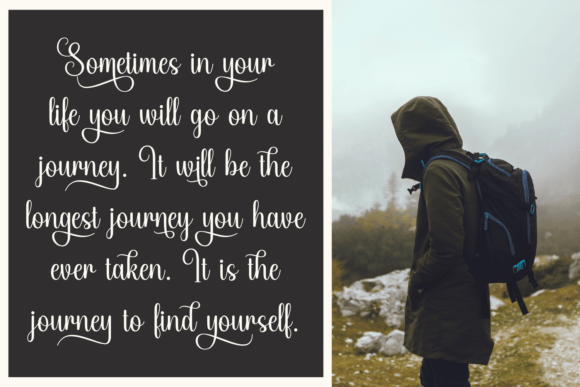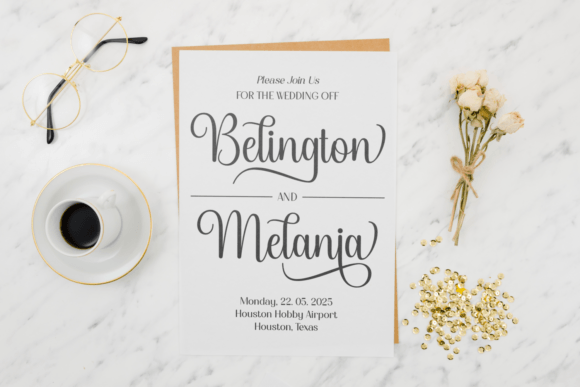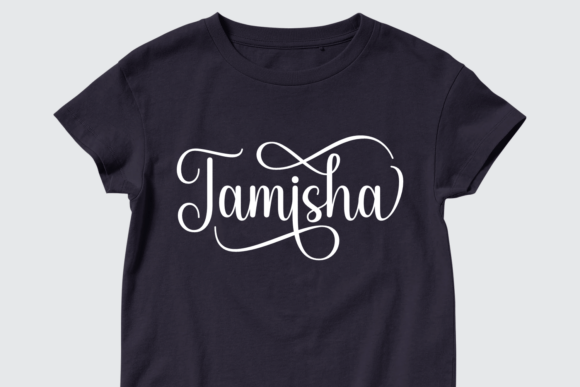
Introducing Handime Font: Elegance and Sophistication in Every Curve
In the world of typography, few fonts capture the essence of elegance and sophistication as beautifully as Handime. This stunning calligraphy script font is designed to bring a touch of luxury and romance to any design project. With its flowing curves, refined details, and graceful swashes, Handime is the perfect choice for designers and crafters looking to create something truly special.
The Beauty of Handime
Handime is more than just a font – it’s an experience. Its elegant curves and refined details evoke a sense of timeless charm, making it ideal for wedding designs, invitations, branding projects, and any creative endeavor that demands sophistication. Whether you’re designing a wedding invitation, a logo, or a packaging label, Handime is sure to make your project stand out.
One of the most striking features of Handime is its beautiful swashes. These elegant flourishes add a touch of drama and sophistication to any design, making it perfect for luxurious and romantic projects. With Handime, you can create designs that are both visually stunning and emotionally resonant.
Handime is a versatile font that can be used in a wide range of design projects. Whether you’re a professional designer or a crafty DIY enthusiast, Handime is the perfect choice for anyone looking to add a touch of elegance and sophistication to their work.
For designers, Handime offers a range of possibilities. Use it to create stunning wedding invitations, elegant branding materials, or sophisticated packaging labels. Its refined details and flowing curves make it perfect for designs that demand attention to detail and a touch of luxury.
For crafters, Handime is a dream come true. Use it to create beautiful handmade cards, elegant scrapbooking pages, or stunning DIY projects. With Handime, you can add a touch of elegance and sophistication to any craft project, making it perfect for special occasions or everyday use.
Key Features of Handime
So what makes Handime so special? Here are just a few of its key features:
- Elegant calligraphy script: Handime boasts a beautiful, flowing script that is both elegant and refined.
- Refined details: With its intricate details and subtle nuances, Handime is the perfect choice for designs that demand attention to detail.
- Graceful swashes: Add a touch of drama and sophistication to your designs with Handime’s beautiful swashes.
- Timeless charm: Handime’s classic design ensures that it will never go out of style, making it a great investment for designers and crafters.
Tips for Using Handime
To get the most out of Handime, here are a few tips:
- Use it sparingly: Handime is a bold font, so use it sparingly to add emphasis and create visual interest.
- Experiment with swashes: Handime’s swashes are a key feature, so experiment with different combinations to find the one that works best for your design.
- Pair it with complementary fonts: Handime pairs beautifully with a range of fonts, so experiment with different combinations to find the one that works best for your design.